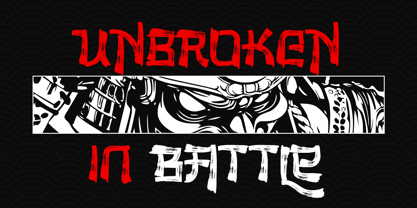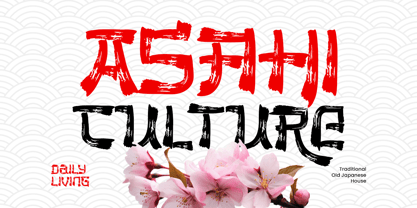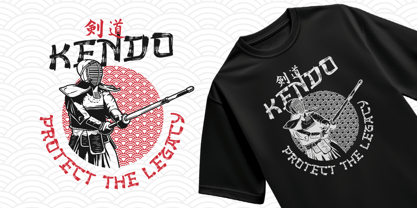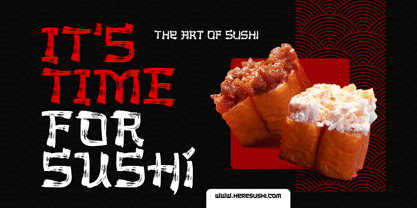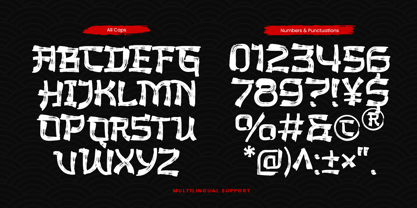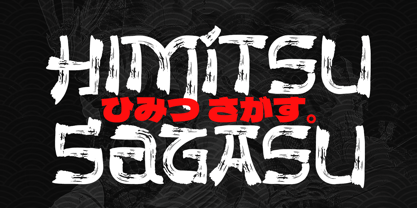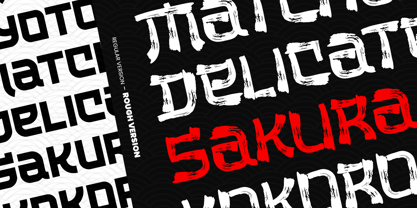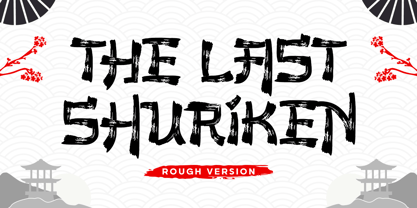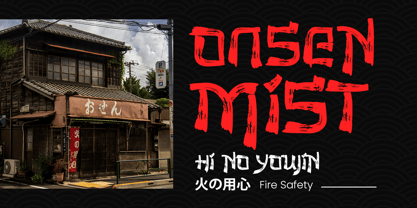
The Last Shuriken Rough
by Arterfak Project
The The Last Shuriken Rough Font Family was designed by Ahmad Ramzi Fahruddin and published by Arterfak Project. The Last Shuriken Rough contains 1 styles. More about this family
The Last Shuriken Rough is a new exploration of our best-selling Japanese display typeface, inspired by the raw beauty of traditional brush lettering. Featuring expressive dry-brush textures, distressed edges, and handcrafted ink strokes, it delivers a bold, authentic look influenced by Japanese calligraphy, vintage signage, and samurai culture.
Designed as an all-caps display font with stylistic alternates, The Last Shuriken Rough helps create natural, dynamic lettering with ease. Perfect for logos, branding, packaging, restaurant menus, posters, apparel, game titles, and social media, it brings handcrafted character and striking visual impact to every project.
Designers: Ahmad Ramzi Fahruddin
Foundry: Arterfak Project